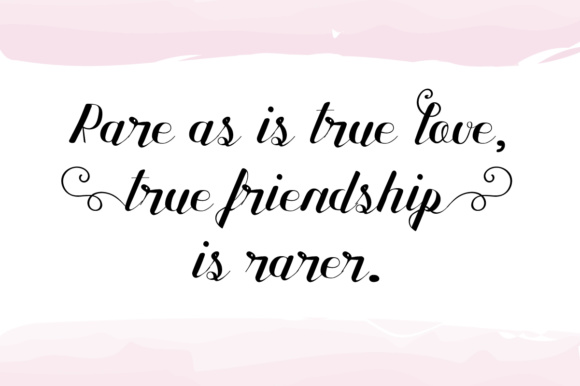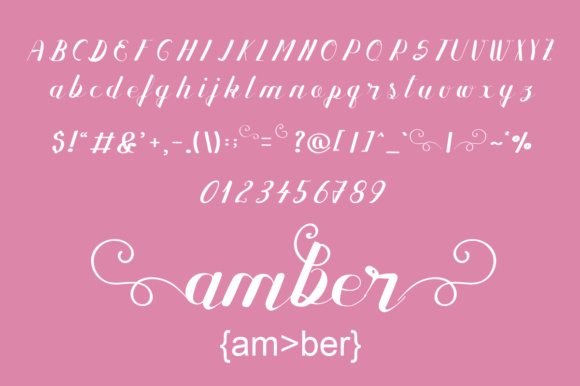
The Sweet Spot of Typography: Unleashing the Delight Calligraphy Font
Have you ever been sitting at your desk, staring at a blank page, and suddenly, a burst of creativity strikes? The words start flowing, and you can envision the perfect design in your mind’s eye. For designers, this moment is pure magic. And, with the right tools, it can be a regular occurrence. One of the secret ingredients to making this happen is the perfect font – a font that can elevate your design from good to great.
| 📌 Product Name | Delight Calligraphy Font |
| 👤 Author | Lickable Pixels |
Enter the Delight Calligraphy Font, a sweet script font that adds a touch of whimsy and charm to any design. With its lovely swashes, it’s the perfect way to add a personal touch to your work. Whether you’re designing a wedding invitation, a birthday card, or a social media post, the Delight Calligraphy Font is sure to bring a smile to your face and your clients’. By incorporating this delightful font into your design arsenal, you’ll be able to create truly unique and eye-catching designs that set you apart from the crowd.
Delight Calligraphy Font Key Features
- Unique Characteristics: Delight Calligraphy Font features elegant, flowing lines and subtle flair, giving it a sophisticated and elegant feel.
Delight Calligraphy Font Review
Overall, I think the Delight Calligraphy Font is a lovely addition to any designer’s toolkit. It’s perfect for creating whimsical and elegant text that adds a touch of personality to your designs. ✨ The font’s delicate lines and subtle flourishes make it ideal for headings, titles, and other display text.
- Beautiful, hand-written feel that’s perfect for creating a sense of warmth and approachability
- Comes in a range of weights and styles to suit different design needs
- Works well for a variety of projects, from wedding invitations to branding materials
However, there are a few limitations to keep in mind. ⚠️ The font can be a bit tricky to read at small sizes, and the lines can become a bit fuzzy if you’re not careful with the resolution. Additionally, the font may not be suitable for body text, as it can be a bit too ornate and difficult to read.
Overall, I think the Delight Calligraphy Font is a great choice for designers who want to add a touch of elegance and whimsy to their work. While it may have some limitations, it’s a versatile and beautiful font that’s sure to delight.
For a more authentic calligraphy look, use the font with a large font size and a bold color.
For a more realistic calligraphy look, use the font with a brush or pen tool to mimic hand-written strokes.
For a more elegant look, use the font with a large font size and a pastel color.
Delight Calligraphy Font is perfect for:
- Birth announcements and baby shower invitations
- Wedding signs and event decor
- Handwritten-style quotes and graphics
Yes, the Delight Calligraphy Font is a highly customizable font that supports a wide range of OpenType features, including ligatures, swashes, and stylistic sets. You can also use font editing software, such as FontLab or FontForge, to customize the font to your specific needs. However, please note that any modifications made to the font may void your license agreement.